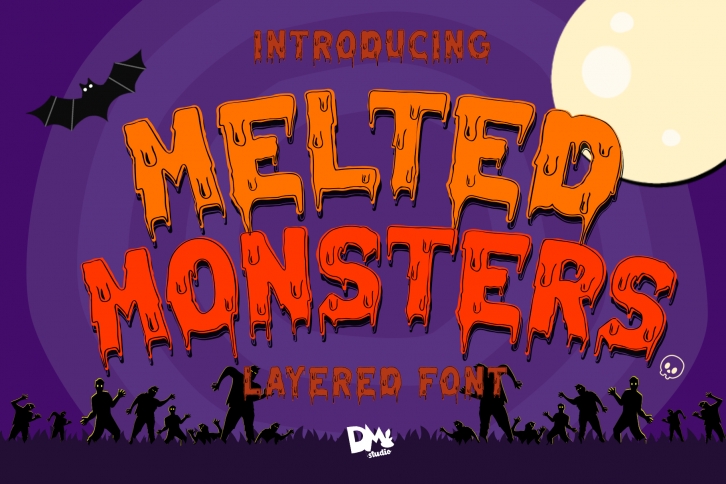
Melted Monster is a great font that was designed by DMletterstudio. Imagine the amount of combinations you can create using this font! The archive is 8.27 MB and it was released on September 3, 2019. Melted Monster looks beautiful on wedding invitations, greeting cards, logos, posters, labels, t-shirt designs, logos, business cards and is perfect for use in ink or watercolor works, fashion, magazines, packaging and food menus, children's books and more!